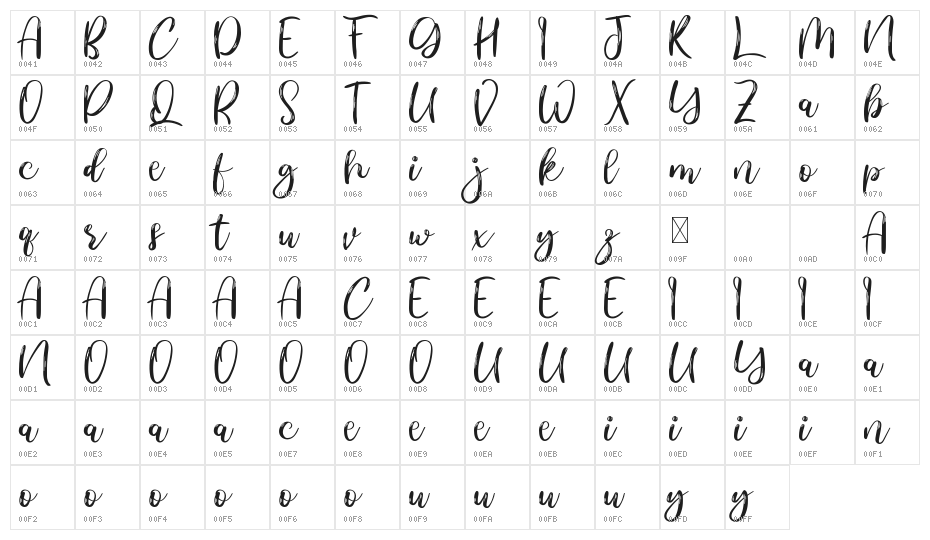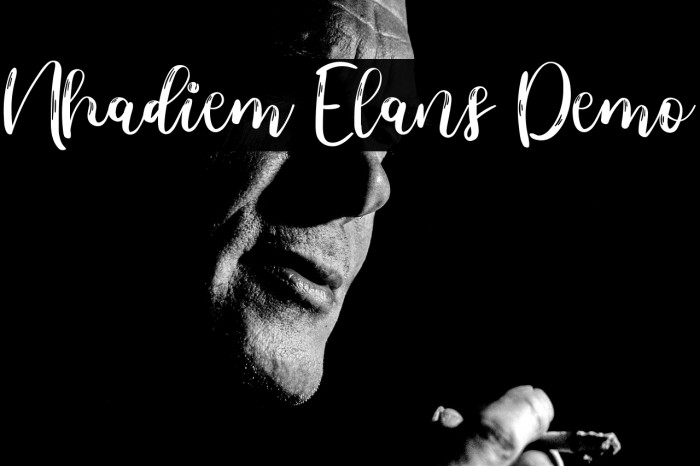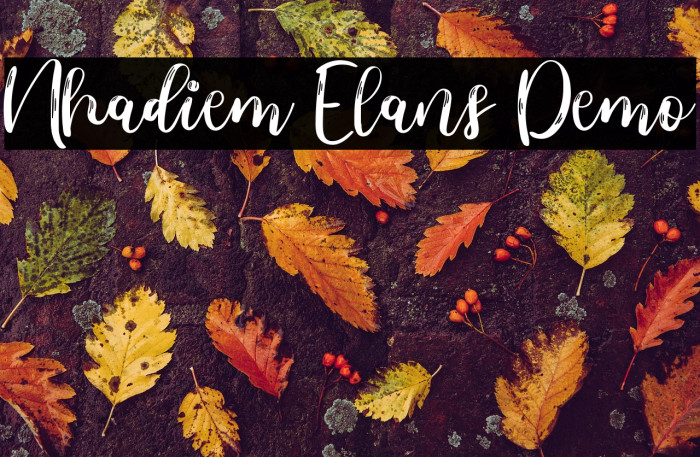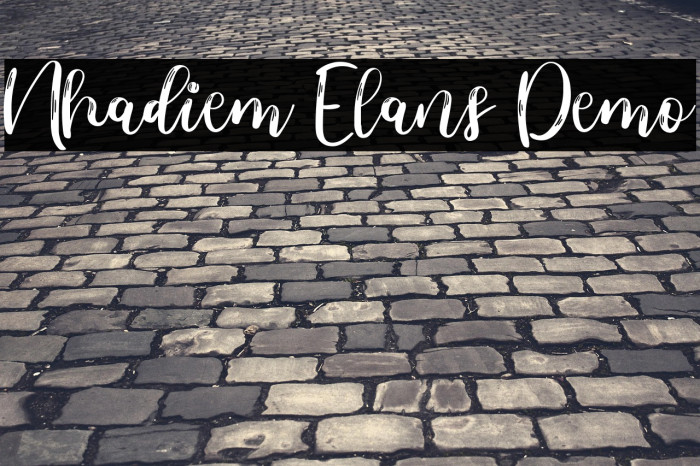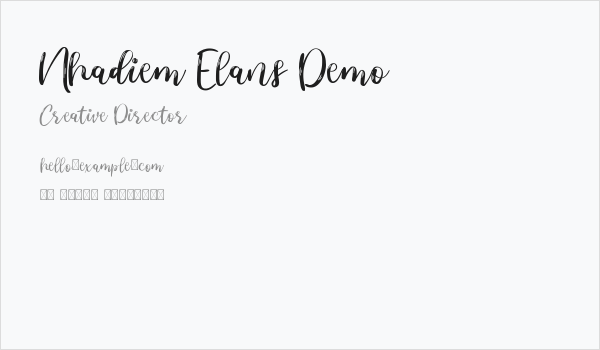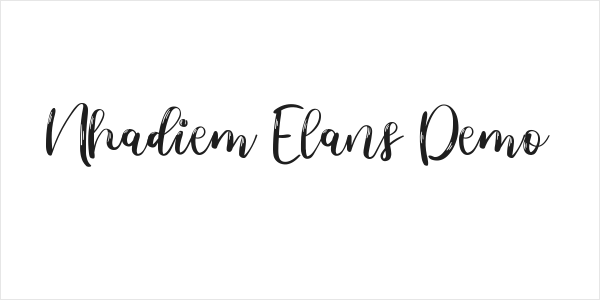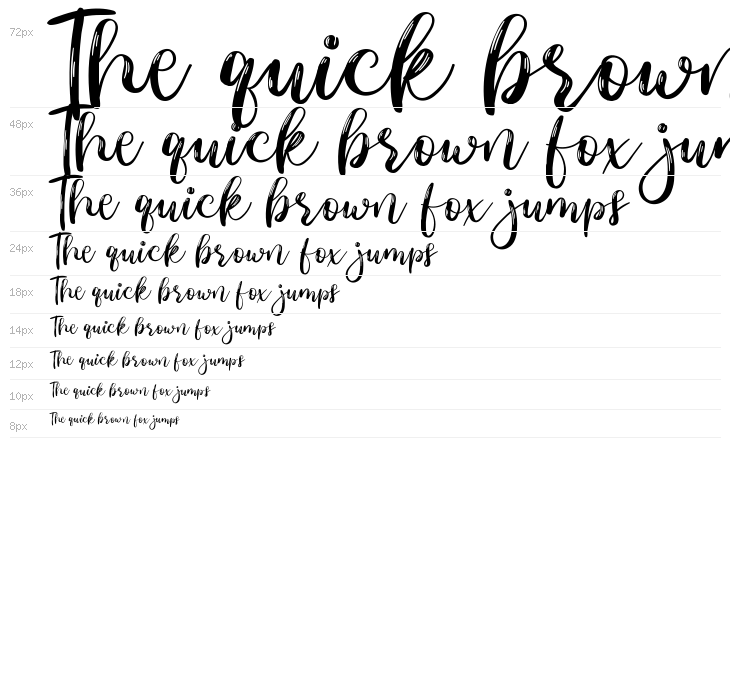
Nhadiem Elans Demo Font
Nhadiem Elans Demo Description
This font features a dynamic and expressive handwritten style, characterized by its flowing, cursive letterforms. The strokes are bold and confident, with a playful and artistic flair that gives it a lively and energetic appearance. The uppercase and lowercase letters are designed with a consistent rhythm, maintaining a sense of harmony and balance throughout. The font includes a full set of characters, including numbers and special symbols, all crafted with the same attention to detail and stylistic consistency. This font is perfect for projects that require a personal touch, such as invitations, greeting cards, and creative branding.
| Proposed Projects | Ideal for invitations, greeting cards, artistic branding, and creative projects. |